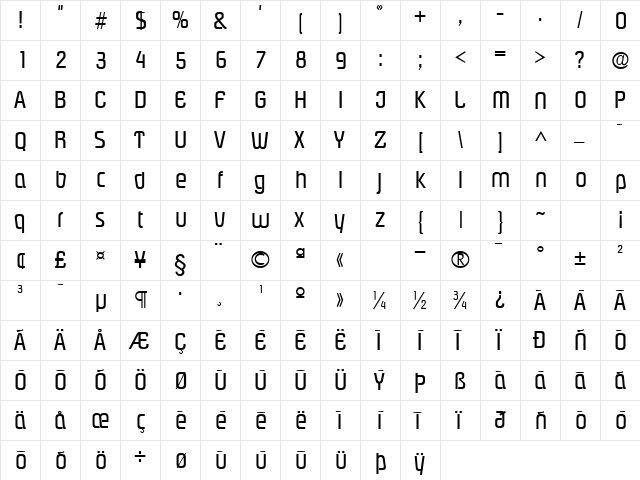
GE Drover Regular
Design Context for GE Drover Typeface
GE Drover is a composed and adaptable typeface that performs quietly and consistently across a wide range of design contexts.